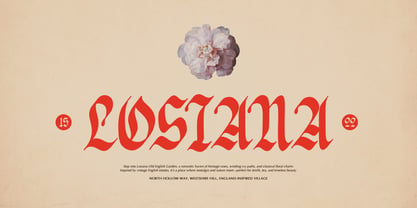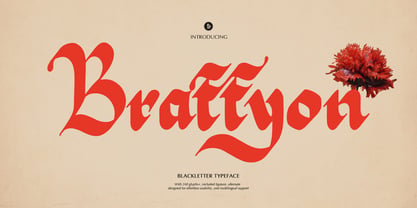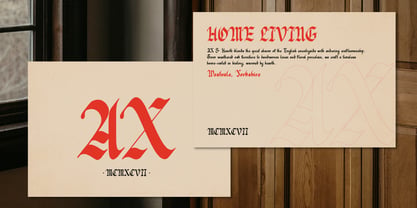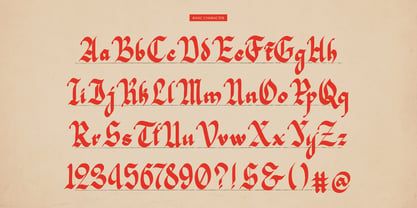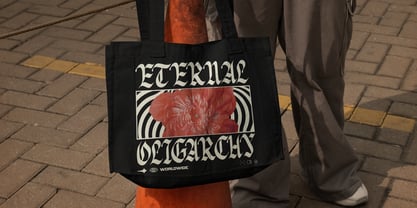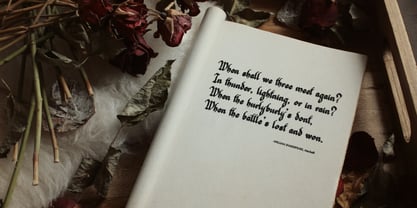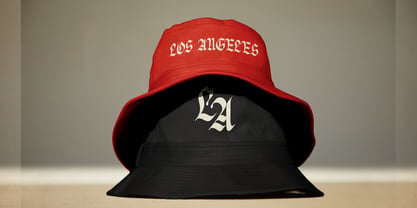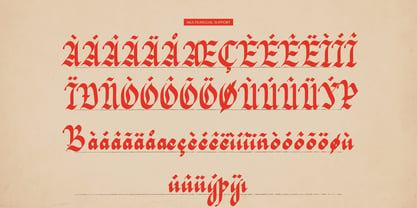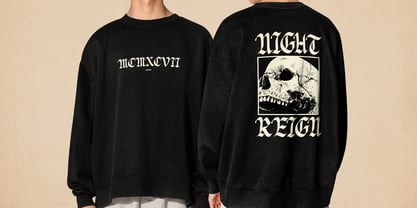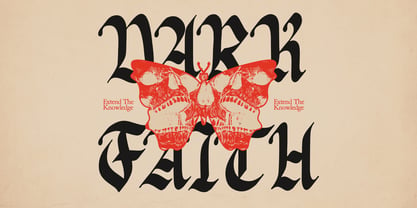
Braffyon
The Braffyon Font Family was designed by Dede Nugraha and published by Denustudio. Braffyon contains 1 styles. More about this family
Braffyon | Blackletter Typeface, from Denustudios, suitable for any projects such as: logos, branding projects, homeware designs, product packaging, mugs, quotes, posters, shopping bags, t-shirts, book covers, name card, invitation cards, greeting cards, label, photography, watermark, special events, and all your other lovely projects that need Blackletter Typeface a taste.
• Regular and Italic
• Alternate and Ligature